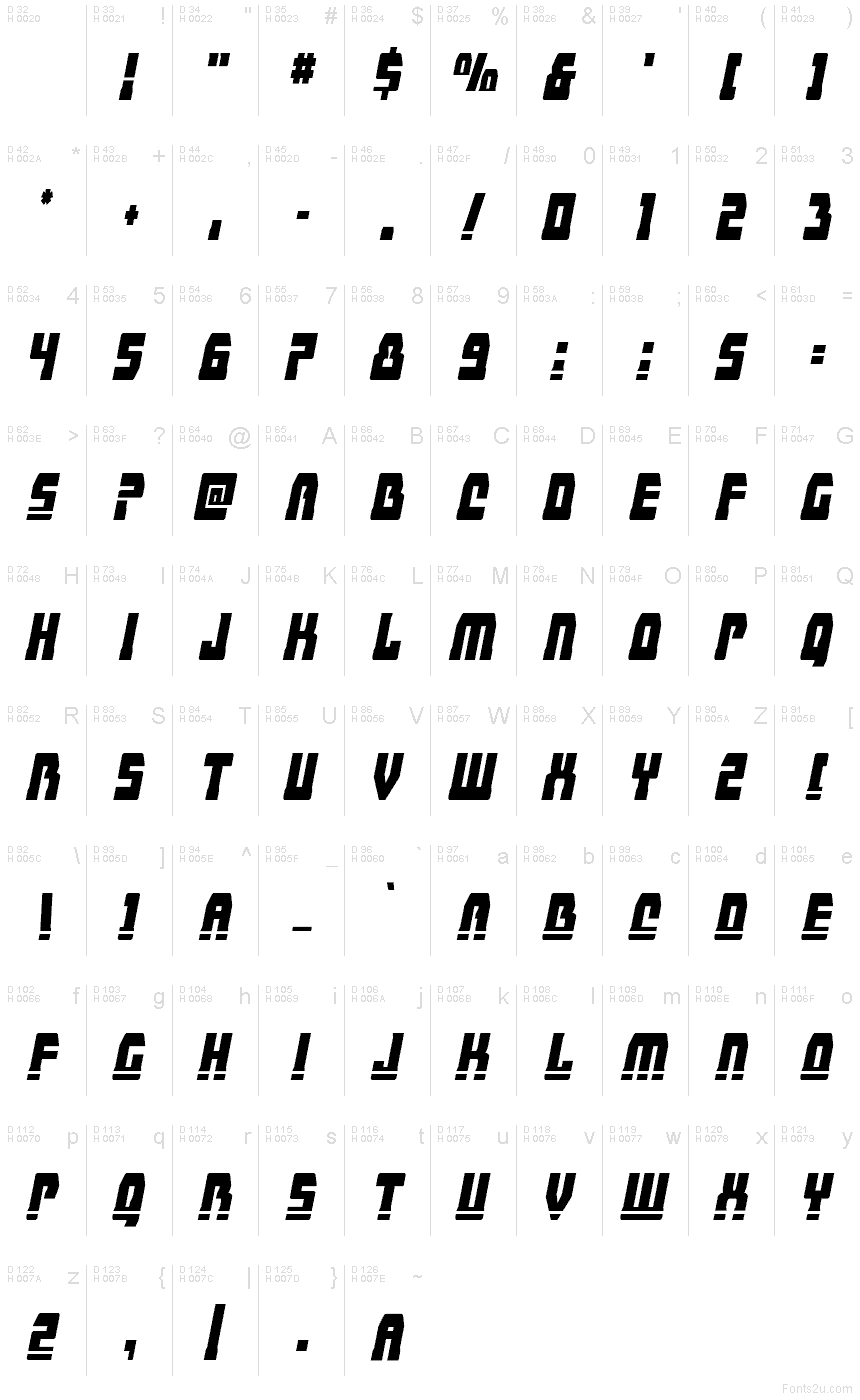
Librator Stripe Condensed Ital
Librator Stripe Condensed Italic font is a bold, condensed, and italic display typeface by Iconian Fonts in a techno style. The sleek and modern font introduces an assertive, impactful, and angular set of characters that are all uppercase. It is decorated in horizontal lines that form an unusual effect with each use of the font.
A futuristic modern typography solution that adds a unique vibe to posters, invitations, product packaging and labels. It can also be used for print on t-shirt designs or for applications in company branding that show up on websites as headlines or inside promotional videos.